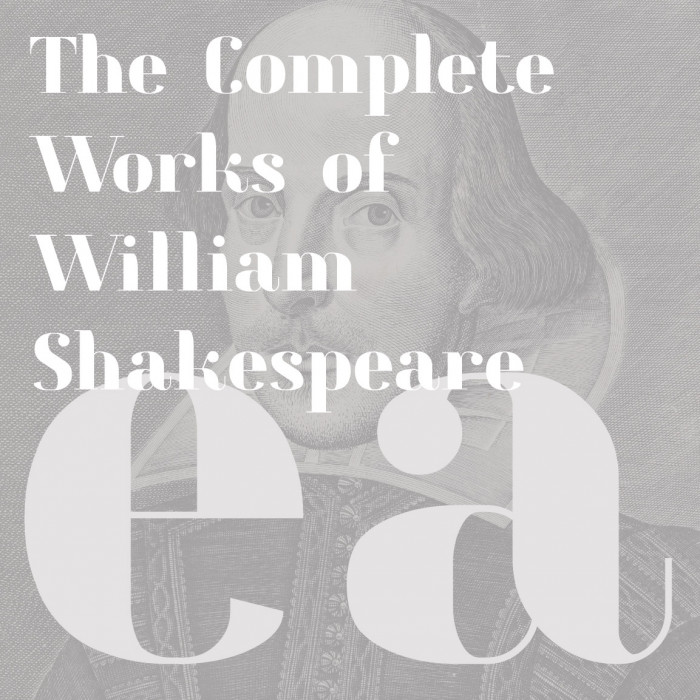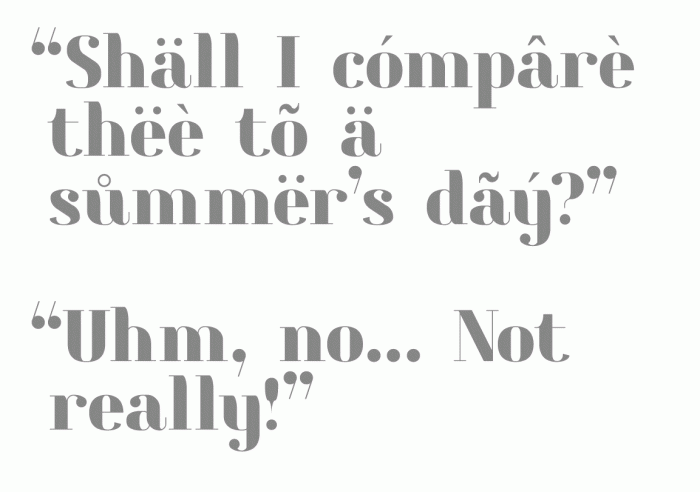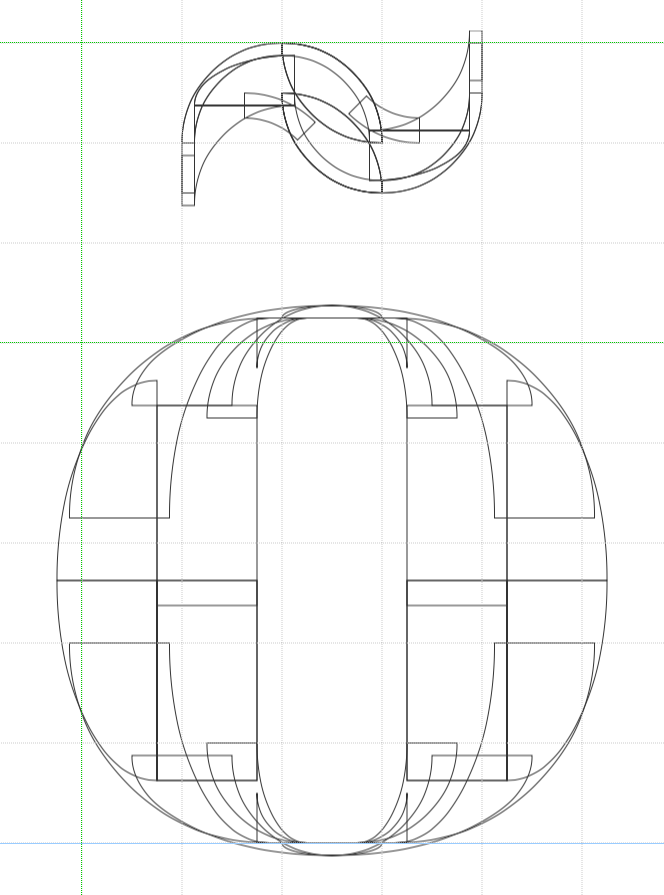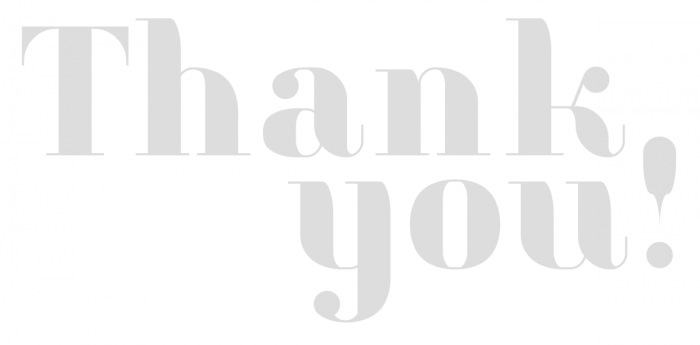
• Been working on this for a while. I though now it's time to publish it and see what you think...
Yep, nothing short of wonderful, some very crafty brick layering!!
COOL BEANS.  I have to get back to trying curves again, one day.
sweet terminals
Could you add kerning, please?
And those numerals... I'm in love with those actually!
Nice, It supports German and French